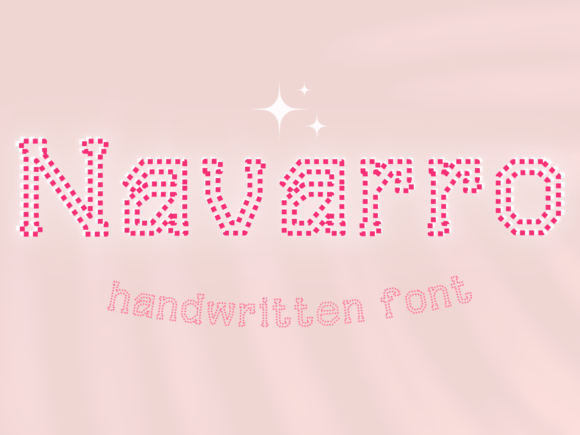
Introducing Navarro Font, the showstopper of the display font family, designed by the ingenious Pukka De. This masterpiece is engineered to make your creations distinctive, leaving an unforgettable mark on your audience. Whether you're composing heartfelt letters, designing eye-catching greeting cards, creating wedding invitations that exude elegance, or crafting Goodnotes and planners that inspire, Navarro Font is your ultimate creative companion.
Unlock the magic of this font and witness how it transforms your designs into captivating works of art. Its unique characteristics add a touch of individuality to logos, teacher-made resources, and a myriad of other projects. With Navarro Font, your work takes center stage, radiating novelty and originality that commands attention.
Embrace the boundless possibilities of Navarro Font. Its versatility extends to Cricut designs, enabling you to effortlessly infuse your imagination into personalized projects. Choose from a spectrum of font designs art that resonates with your creative vision and watch your ideas blossom into tangible masterpieces.
Experience the joy of typography with Navarro Font. Its elegant curves and distinctive strokes make it a perfect fit for handwritten notes, adding a personal touch to your communication. Unleash your creativity and let this font be your muse as you explore the art of lettering and calligraphy.
Immerse yourself in the world of Navarro Font, where words come alive with character and personality. Its captivating style enhances posters, templates, and vintage designs, evoking a sense of nostalgia and timeless charm.
Welcome to the realm of Navarro Font, where imagination thrives and creativity knows no bounds. Let this font be your guide as you embark on a journey of artistic expression. With Navarro Font, your designs will leave a lasting impression, captivating hearts and minds with their distinctive allure.